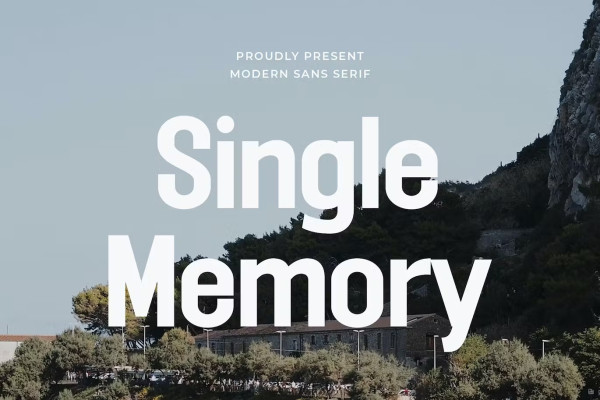
Single Memory Font
Single Memory Font, our new modern singlememory sans serif font with an elegant style, perfect for branding, logos, invitations, magazines, product packaging and more.